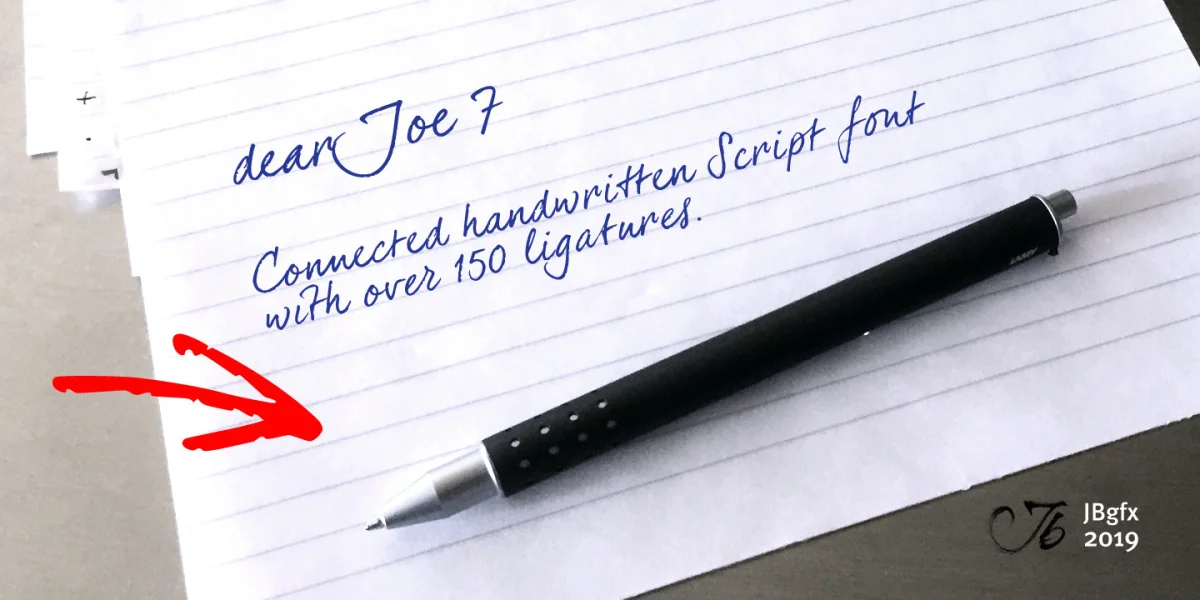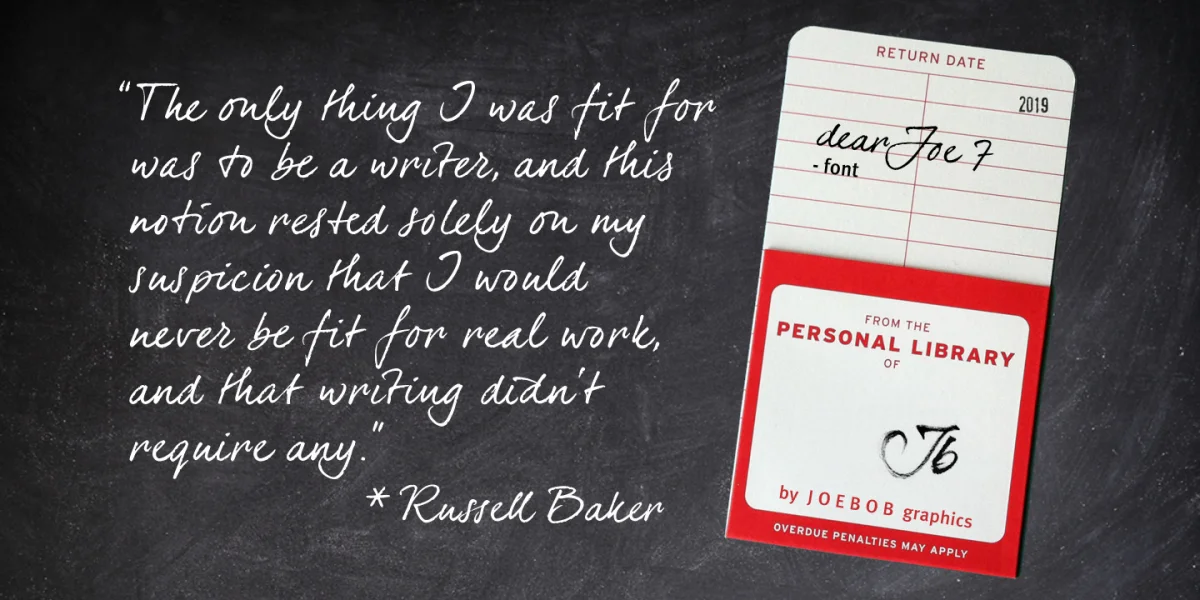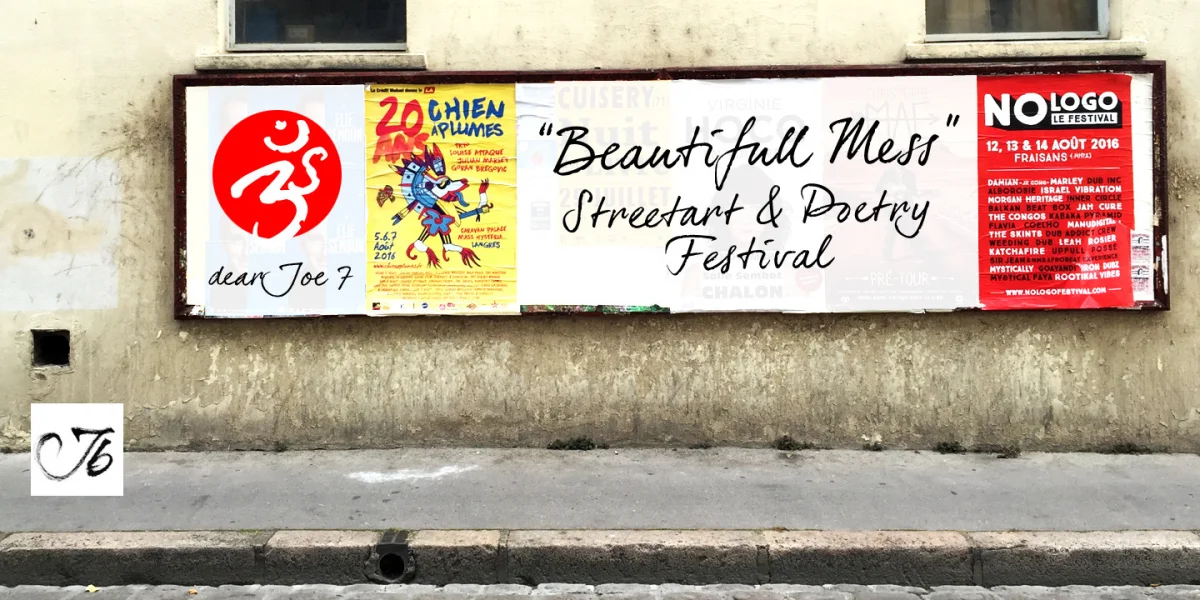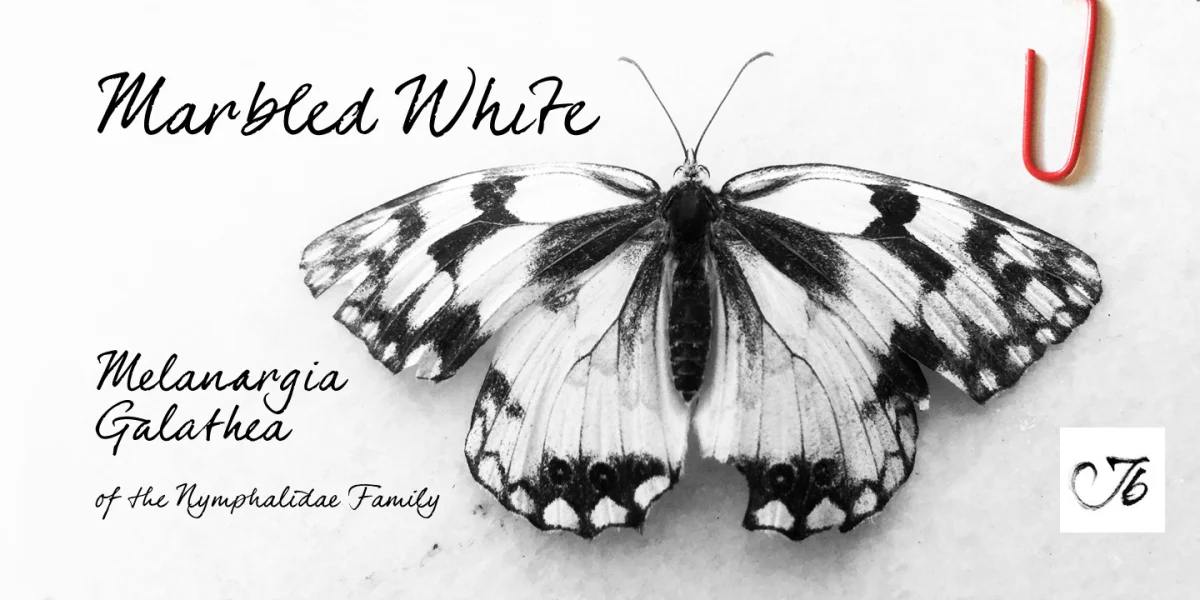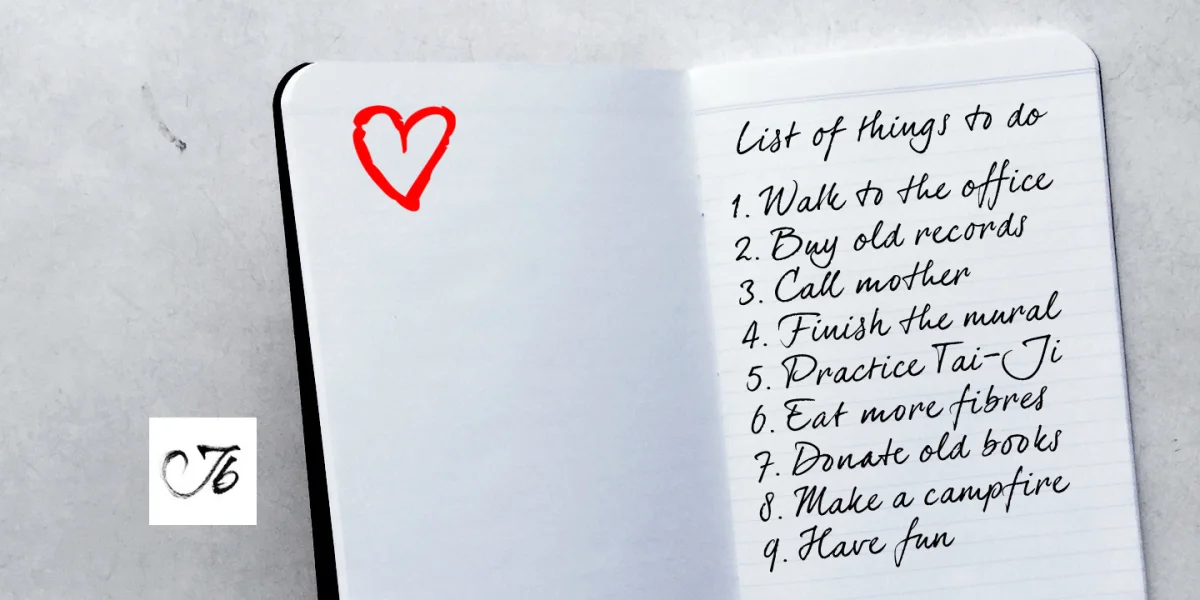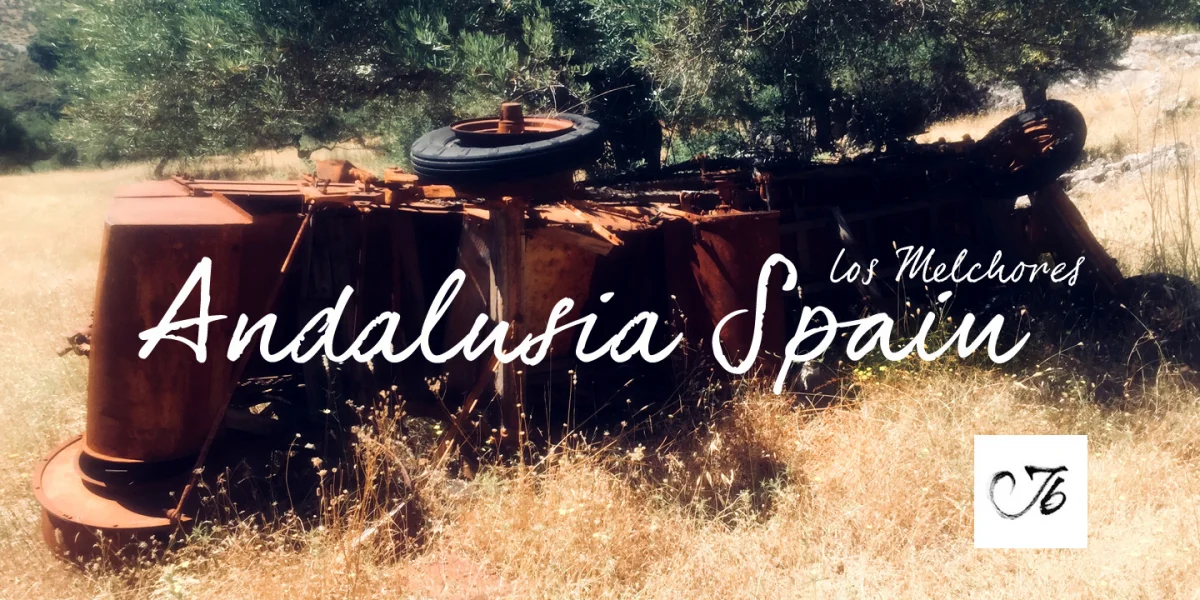
The dearJoe series of fonts came to life around the year 1999, when I created dearJoe 1, which was a first (and half-assed) attempt to convert my own handwriting into a working font. Being able to type in my own hand had always been a childhood fantasy, and even though I only partly understood the software, a working font was generated and I decided to put it on the internet for people to use in their own personal projects.
Which they did: at this moment the dearJoe 1 font has been downloaded millions of times and can be found on Vietnamese riksjas, Tasmanian gyms and chocolate stores on 5th Avenue for instance. The font is not something I am particularly proud of, but it started me of in building what’s now the JOEBOB graphics foundry.
Inbetween creating other fonts, the dearJoe series has become a theme I revisit every once in a while, trying to create an update on how my handwriting has evolved, along with my abilities in creating fonts that mimic actual handwriting. In the last decade or so I started implementing ligatures and alternate characters, which helped a lot in coming to a result that can almost pass for actual handwriting.
The 2019 dearJoe 7 font is the latest addition to this font family. All characters were scanned from handwritten notes, cherrypicking the characters and letter-combinations I liked best. They were written with a Lamy M66 B pen and only minor adjustments were made to the original scans, leaving most little flaws and rough edges as they were for a convincing ball-point on paper result.